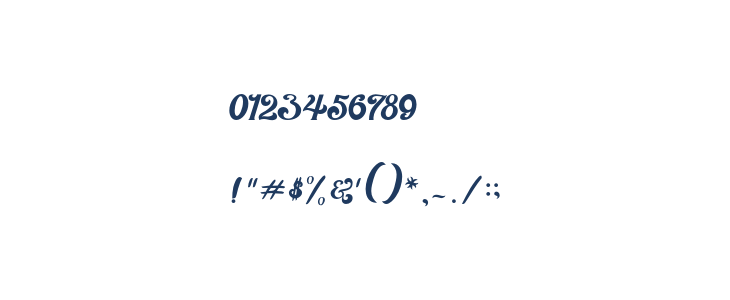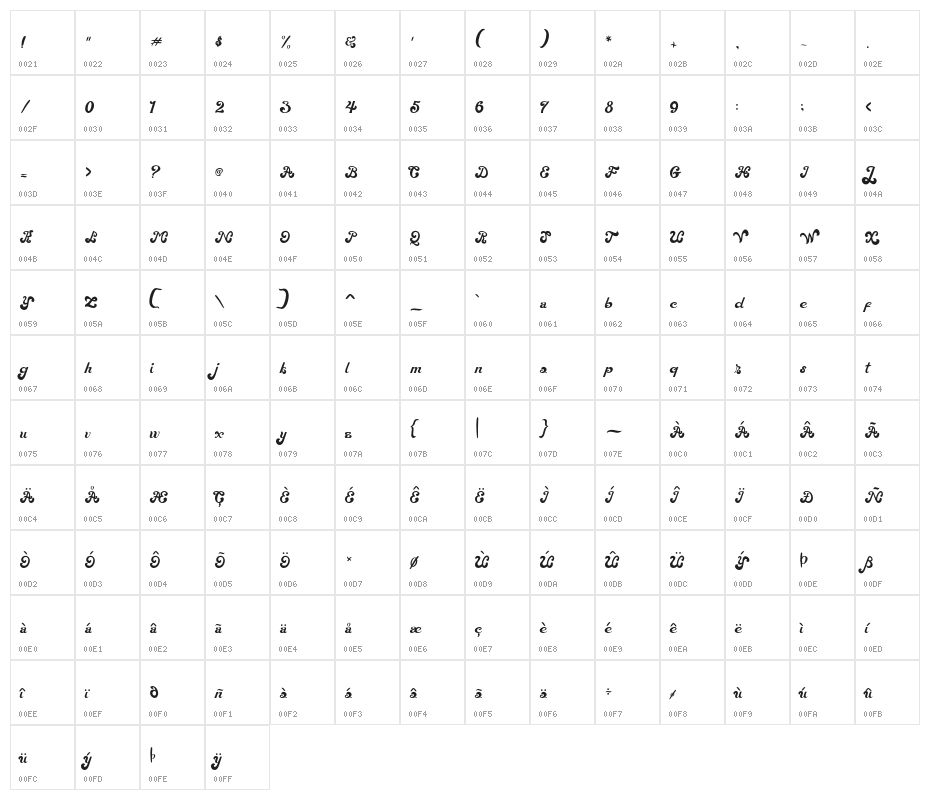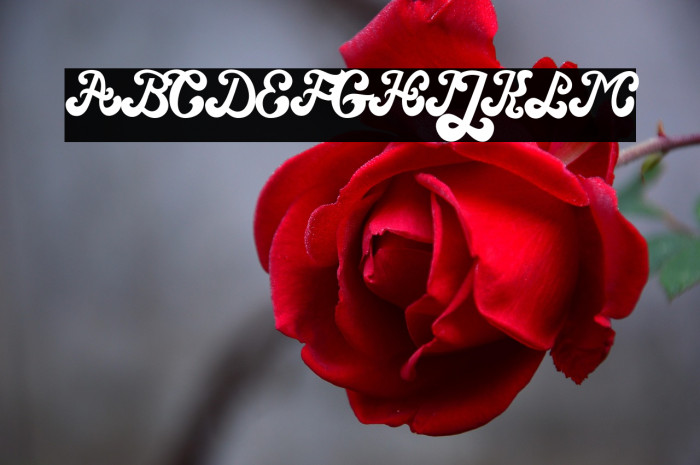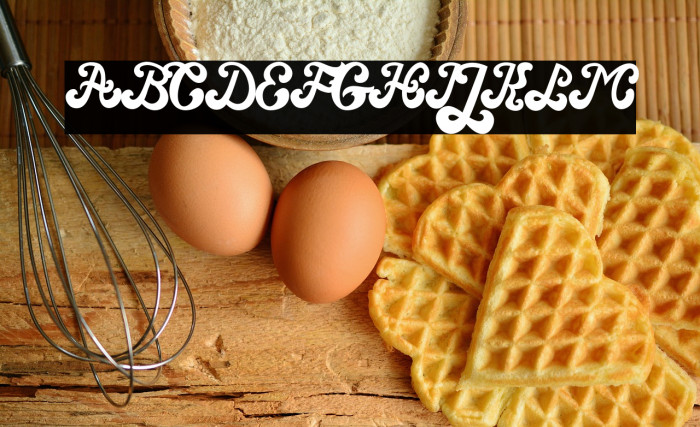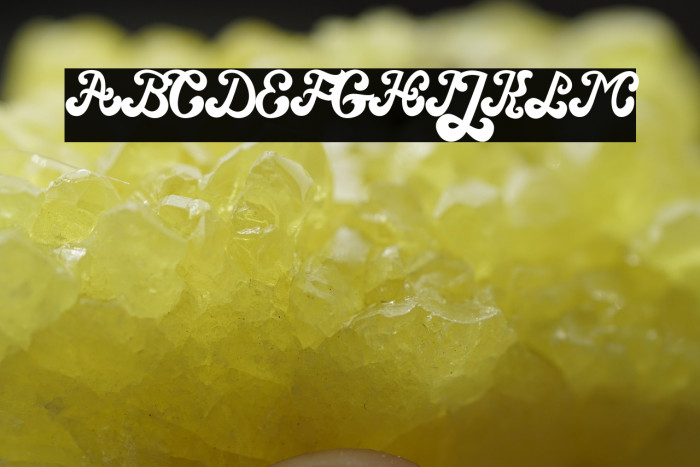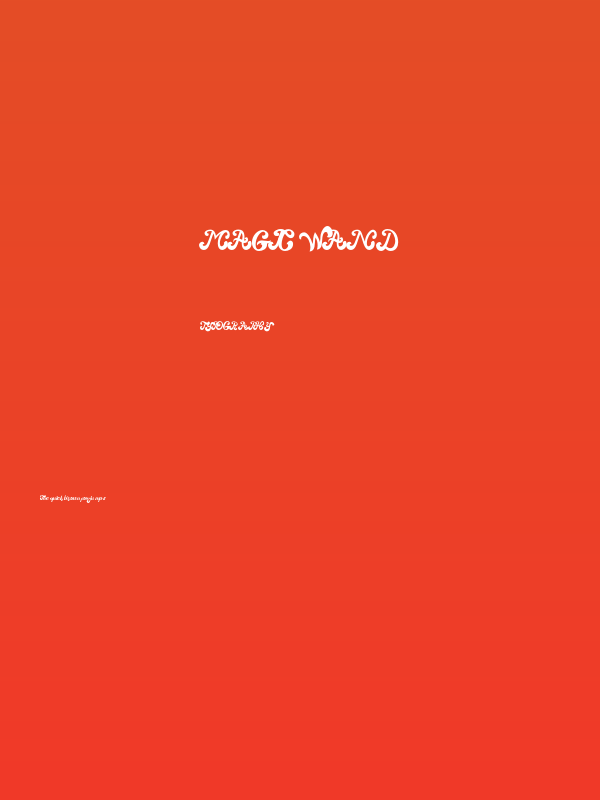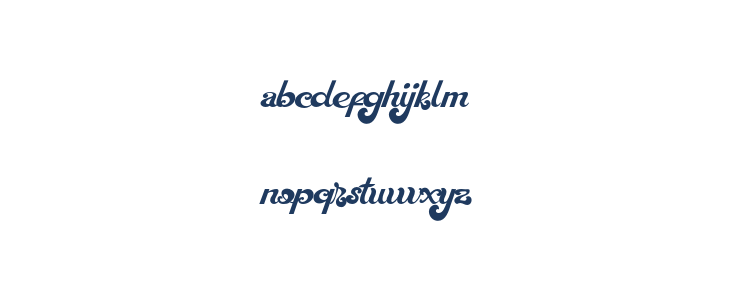
Magic Wand Font
Magic Wand Description
This font features a whimsical and playful design, characterized by its curly and ornate letterforms. Each character is crafted with a sense of movement and flair, making it stand out with its decorative style. The uppercase letters are bold and prominent, while the lowercase letters maintain a consistent flow with elegant curves. The numbers and special characters follow the same ornate style, ensuring a cohesive look across all elements. This font's unique design is perfect for capturing attention and adding a touch of magic to any project.
| Proposed Projects | Ideal for invitations, greeting cards, children's book covers, and playful branding. |